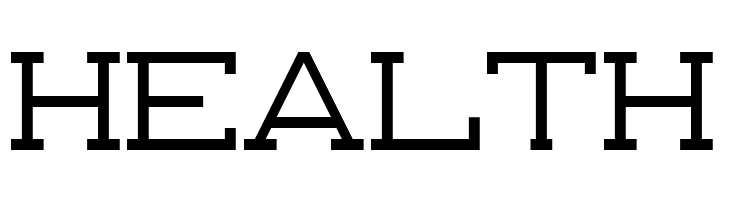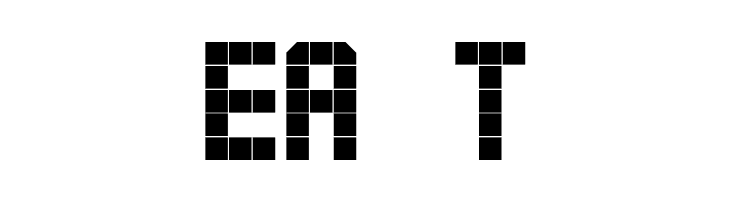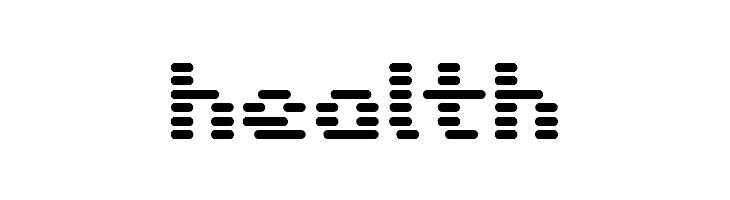
( Tama Putra - be.net/tmptr )
A bold, geometric font with sharp, angular letterforms and high contrast.
( Thales L. Aquino - www.be.net/thalesaquino )
A bold, pixelated font with a retro digital style.
( memesbruh03 - Aaron D. Chand )
A pixelated, retro-style font with a blocky, digital appearance.
( rayhan - fontstruct.com/fontstructors/cablecomputer/fontstructions )
A modern slab serif font with strong, rectangular serifs and a geometric design.
( 010Bus )
A pixelated, blocky font with a retro digital aesthetic.
( Akkades )
( Alfabag )
A bold, pixelated typeface with a retro digital aesthetic.
( Andrew Bulhak - dev.null.org/fonts/ )
A pixelated, monospaced font with a retro digital style.
( ARECIBO MESSAGE )
A pixelated, grid-based design inspired by the Arecibo message, reflecting a digital and futuristic style.
( BRIDGEco - bridgeco.jp/ )
A dot matrix style font with a modern, digital aesthetic.